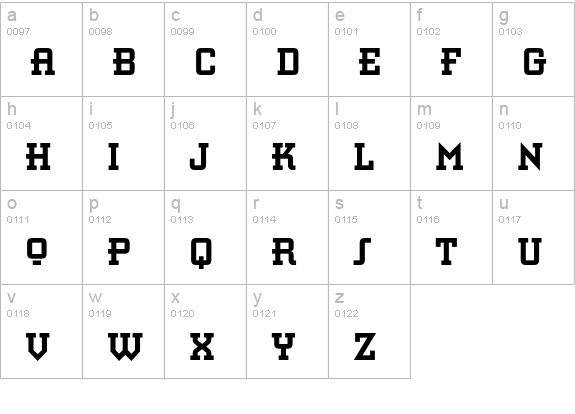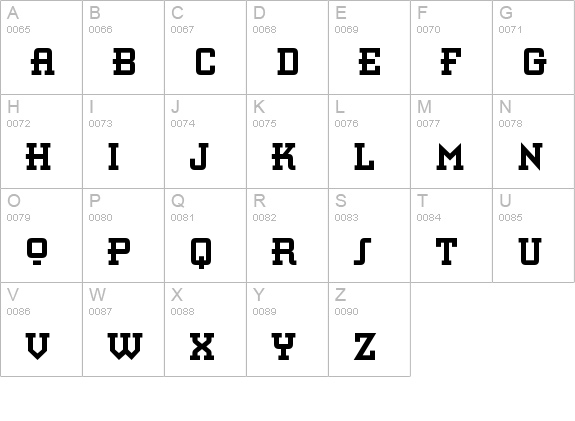
Retro Bold Std is a strong, high-contrast variant in the Retro typeface family \xE2\x80\x94 well suited to headlines, attention-grabbing titles, and strong calls-to-action.
Retro Bold Std font is a perfect blend of vintage charm and modern boldness. This captivating typeface captures the essence of retro design, with its clean lines, exaggerated curves, and distinct character shapes. The bold weight adds a powerful and eye-catching element to any project, making it perfect for headlines, titles, and branding. But what sets Retro Bold Std font apart is that it is not only visually stunning, but also freely available to download at FontsMarket.com. This means that designers, creatives, and typographers can enjoy the beauty and versatility of this font without any cost. Whether you're working on a poster, logo, website, or any other design project, Retro Bold Std font will instantly elevate your work and give it a timeless appeal. Its versatility allows it to be used in a wide range of styles, from vintage-inspired to modern and edgy. With its clean and legible letterforms, Retro Bold Std font ensures that your message is delivered with clarity and impact. The attention to detail in each character makes it a joy to work with, and it adds a touch of sophistication to any design. So, if you're in search of a font that combines the best of retro aesthetics and contemporary boldness, look no further than Retro Bold Std font. And remember, it's freely available to download at FontsMarket.com, making it accessible to everyone who wants to add a touch of retro charm to their designs.